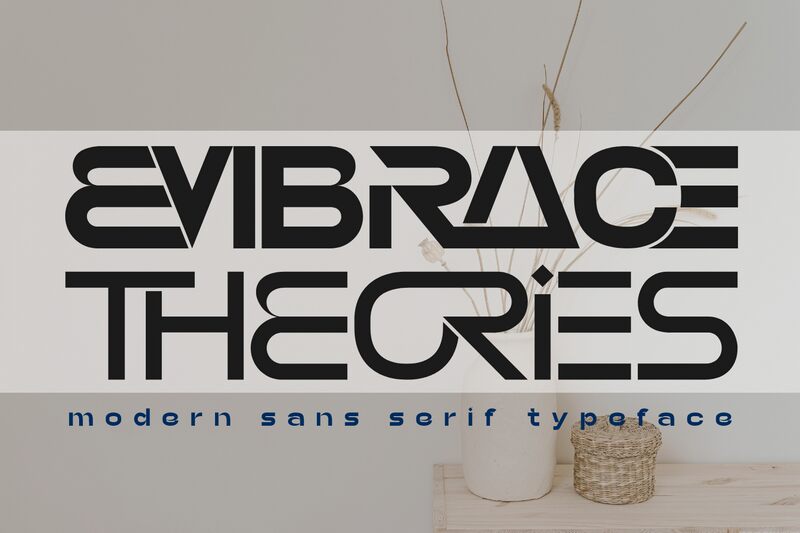
Embrace Theories font family is a free sans serif font designed by 177Studio. Modern and clean, this font features a sleek look with geometric shapes and minimalistic lines. Aesthetic and contemporary, the typeface carries a dynamic and futuristic presence, making it suitable for all modern design projects.